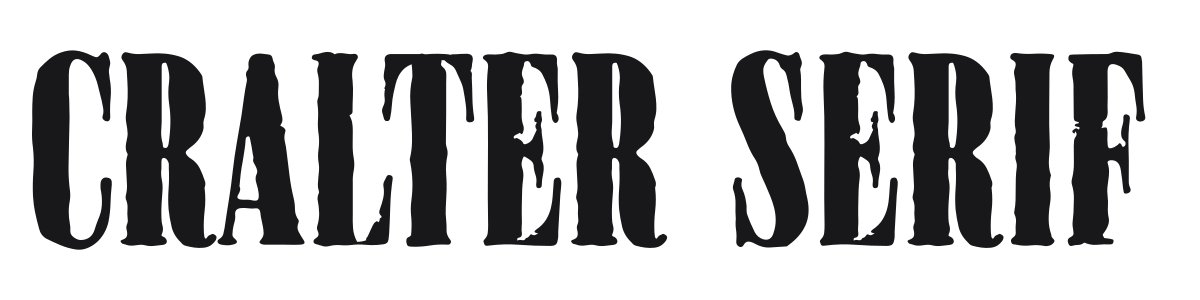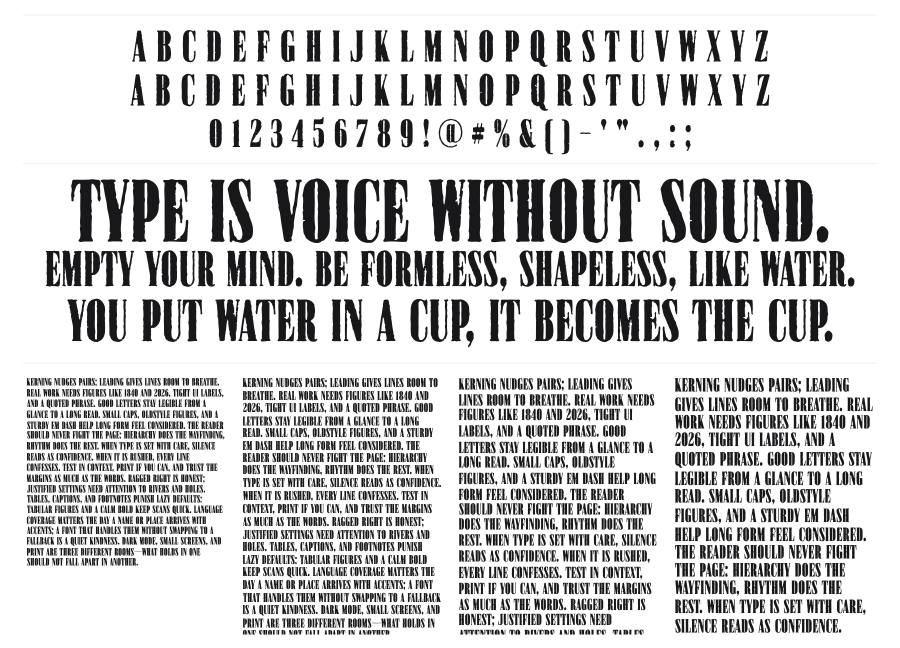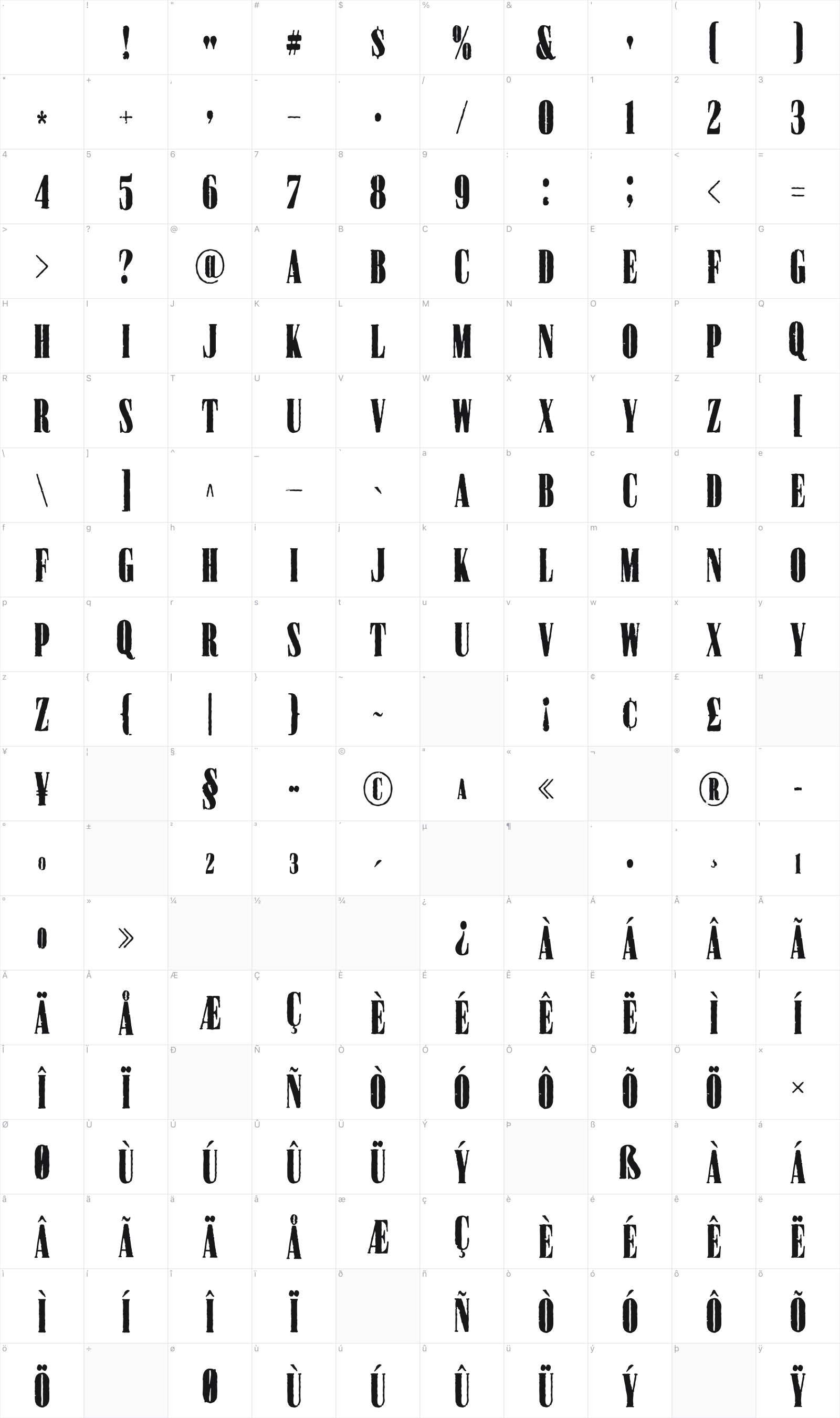
Cralter Serif
Cralter Serif is a heavily condensed, distressed serif with deep roots in 19th-century wood-type and Victorian display printing. The extreme stroke contrast between thick stems and fine hairlines is amplified by rough, eroded edges that look genuinely aged. It carries the weight of a saloon sign or old horror-film title card.